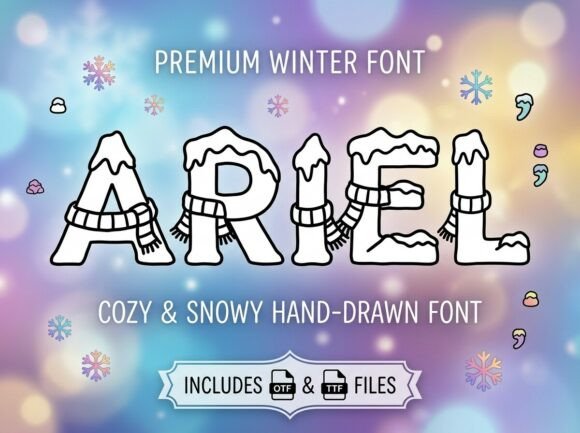
Cozy Up Your Winter Designs with Ariel Font
As a designer, I’ve had my fair share of late nights scrolling through font libraries, searching for that perfect match for a project. But one winter evening, while working on a festive holiday campaign for a client, I stumbled upon Ariel – a charming display typeface that instantly captured the “snug-and-seasonal” soul I was looking for. In this article, I’ll share my experience with Ariel, its features, and how you can make the most of this delightful font in your designs.
First Impressions: What I Love About Ariel
Ariel has quickly become a favorite in my font collection, and here’s why:
- ✨ Unique Snow Caps: The hand-drawn “snow caps” on each letterform add a touch of whimsy and festivity, making it perfect for holiday designs.
- ✅ Cozy Striped Scarves: The striped scarves wrapped around every character bring a sense of warmth and playfulness to the font.
- 💕 Heavy Structural Weight: Ariel’s bold and rounded letterforms make it highly legible, even at smaller sizes.
- 🎉 Modern Playfulness: The font seamlessly bridges the gap between traditional holiday illustrations and modern branding.
While Ariel has won my heart, there are a few things to keep in mind:
- 🤔 Limited Versatility: Ariel is a display typeface, so it’s best used for headlines and titles rather than body text.
- ⚠️ Glyph Limitations: Some users have reported issues with certain glyphs not displaying correctly in certain software.
The Story Behind Ariel
Ariel was designed with the intention of capturing the magic of winter. Its creator aimed to craft a font that would evoke feelings of warmth and coziness, perfect for holiday designs. The result is a charming typeface that instantly adds a touch of festivity to any project.
| Font Name | Ariel Font |
| Author | grifvixcolor |
| What is Ariel’s primary use case? | Ariel is best suited for display purposes, such as titles, headlines, and promotional materials. |
| Does Ariel support OpenType features? | Yes, Ariel supports OpenType features, including stylistic alternates and glyphs. |
With Ariel, you can add a touch of winter wonder to your designs. Its unique snow caps, cozy striped scarves, and bold structural weight make it the perfect choice for holiday projects, from independent hot cocoa cafe identities to personalized greeting cards.